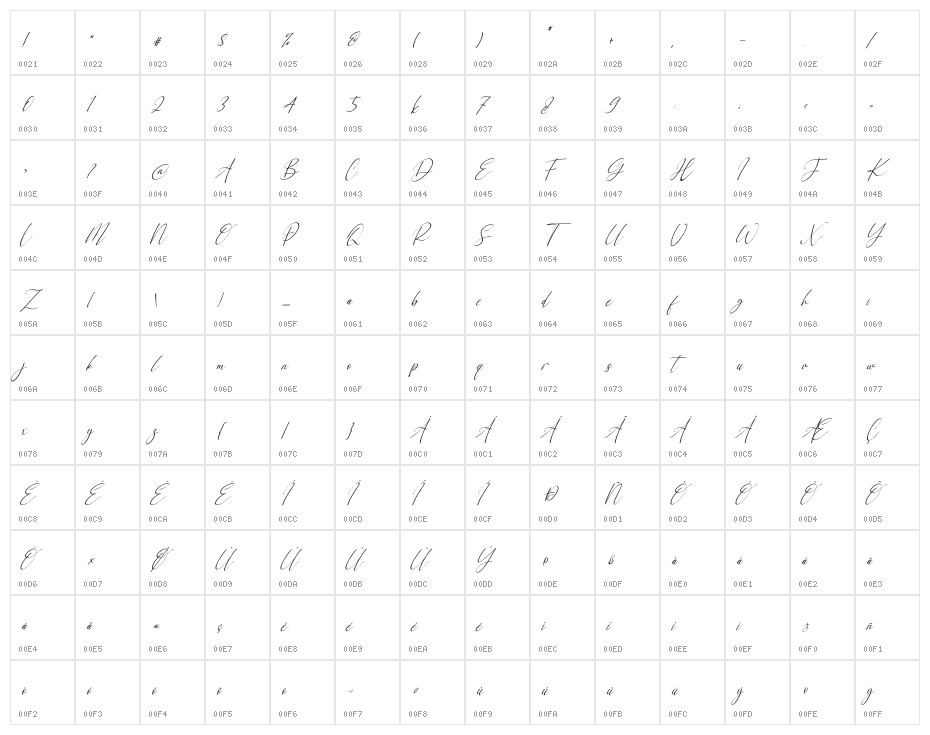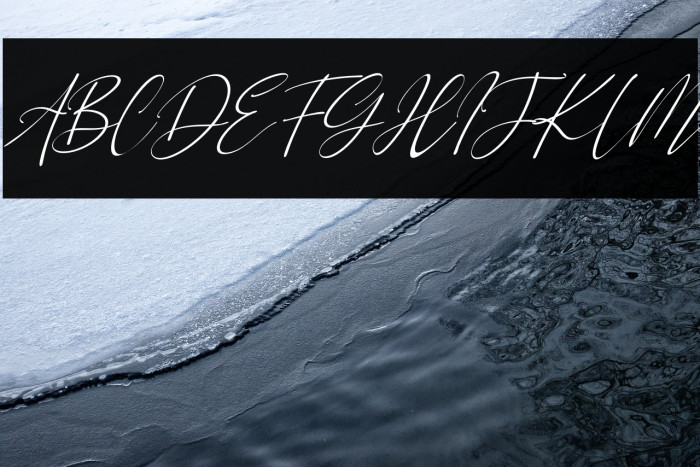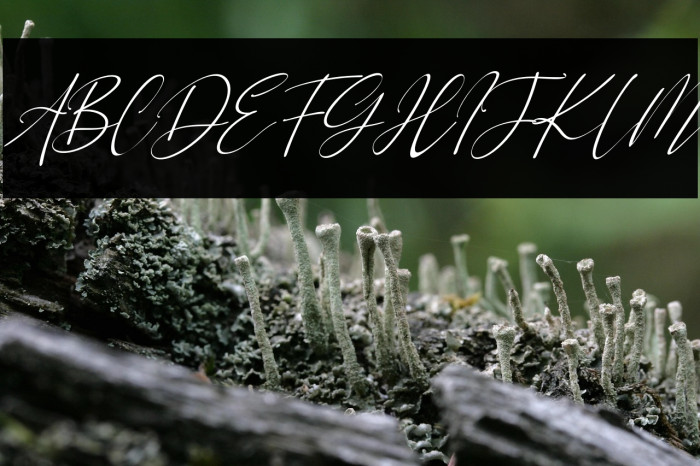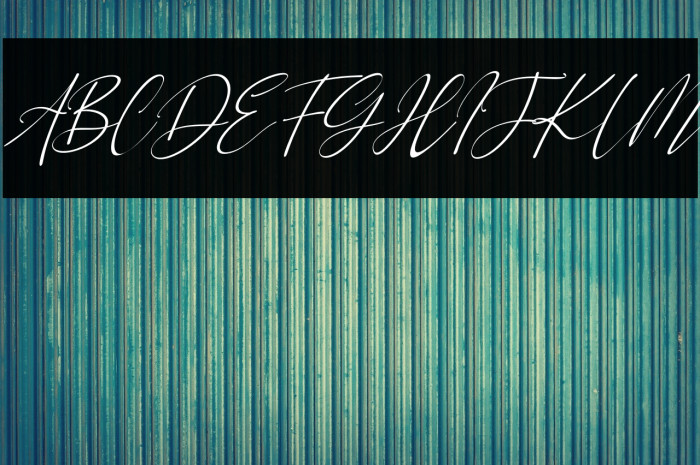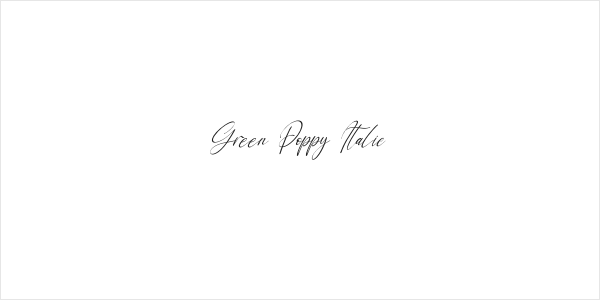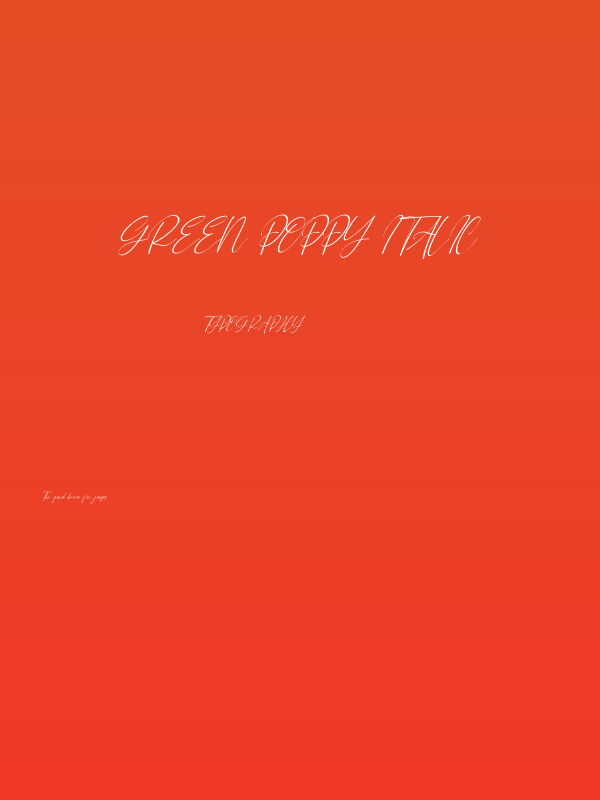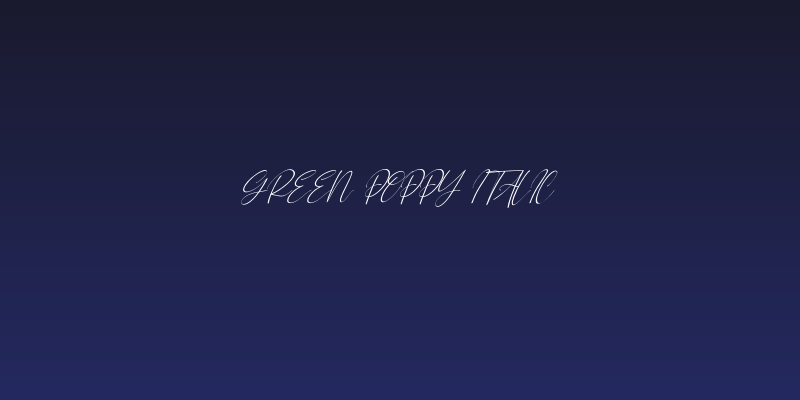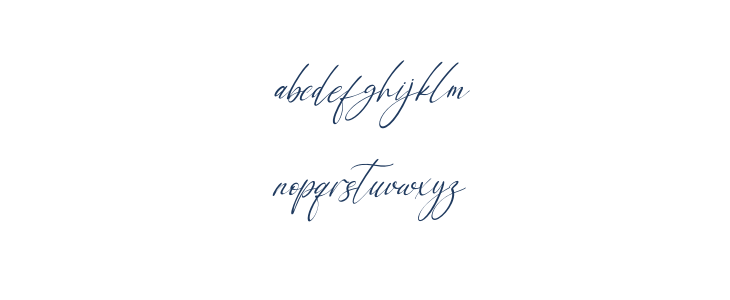
Green Poppy Italic Font
Green Poppy Italic Description
This elegant script font features a flowing, cursive style with a graceful and sophisticated appearance. The letters are interconnected, creating a seamless and fluid look that mimics natural handwriting. The strokes are thin and delicate, with a consistent slant that adds to its refined aesthetic. The uppercase letters are ornate and slightly larger, while the lowercase letters maintain a balanced and harmonious flow. The numerals and special characters are designed to complement the overall style, ensuring a cohesive appearance across all text. This font exudes a sense of elegance and charm, making it ideal for projects that require a personal and artistic touch.